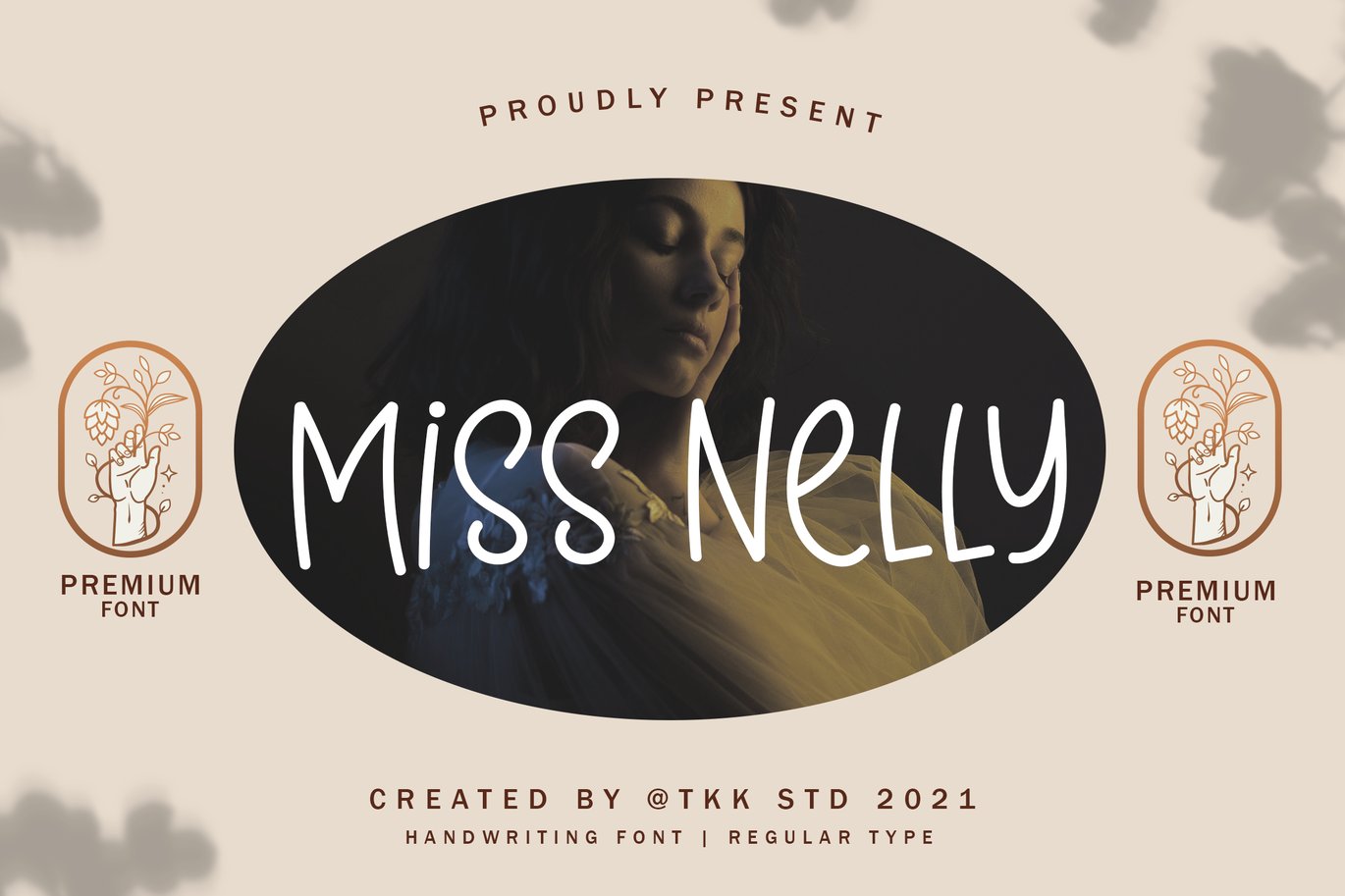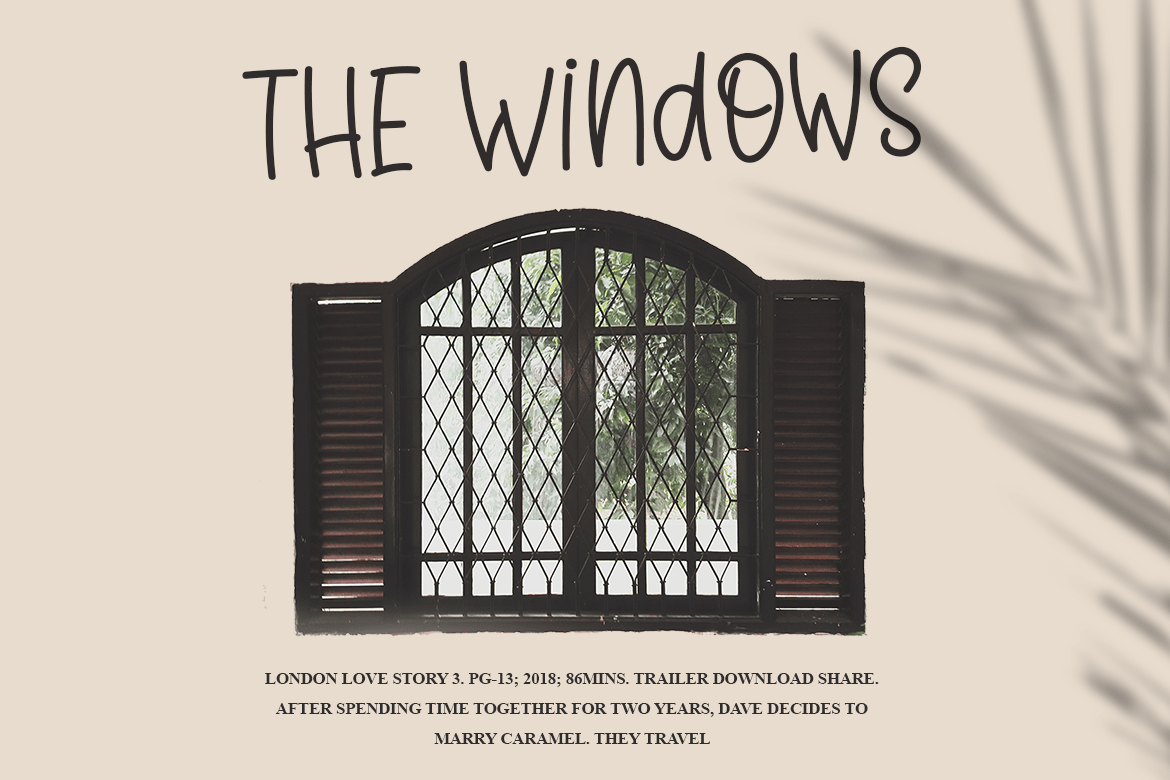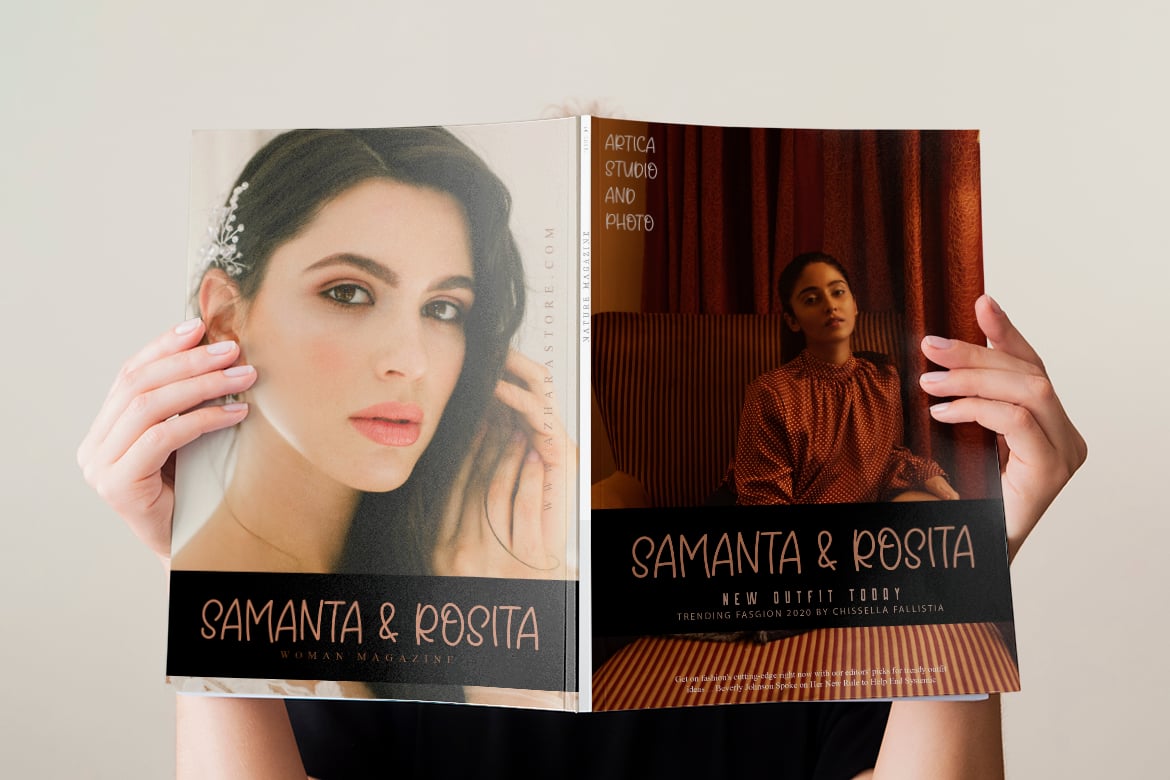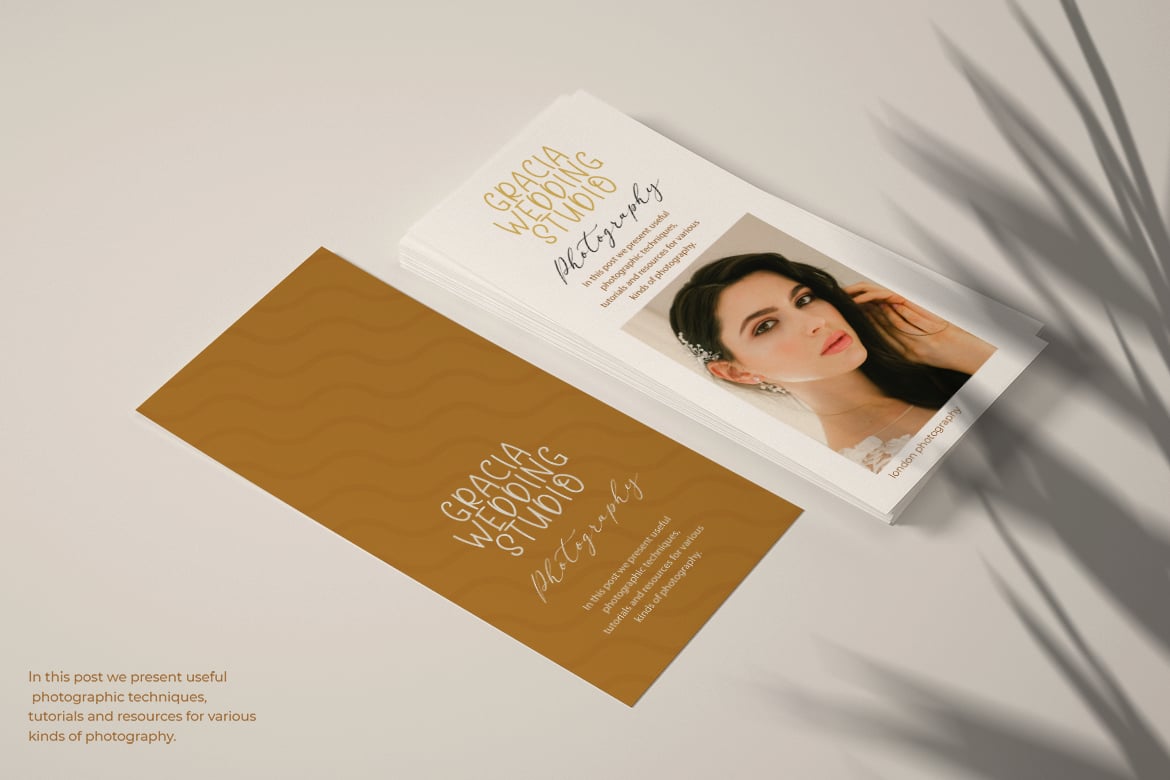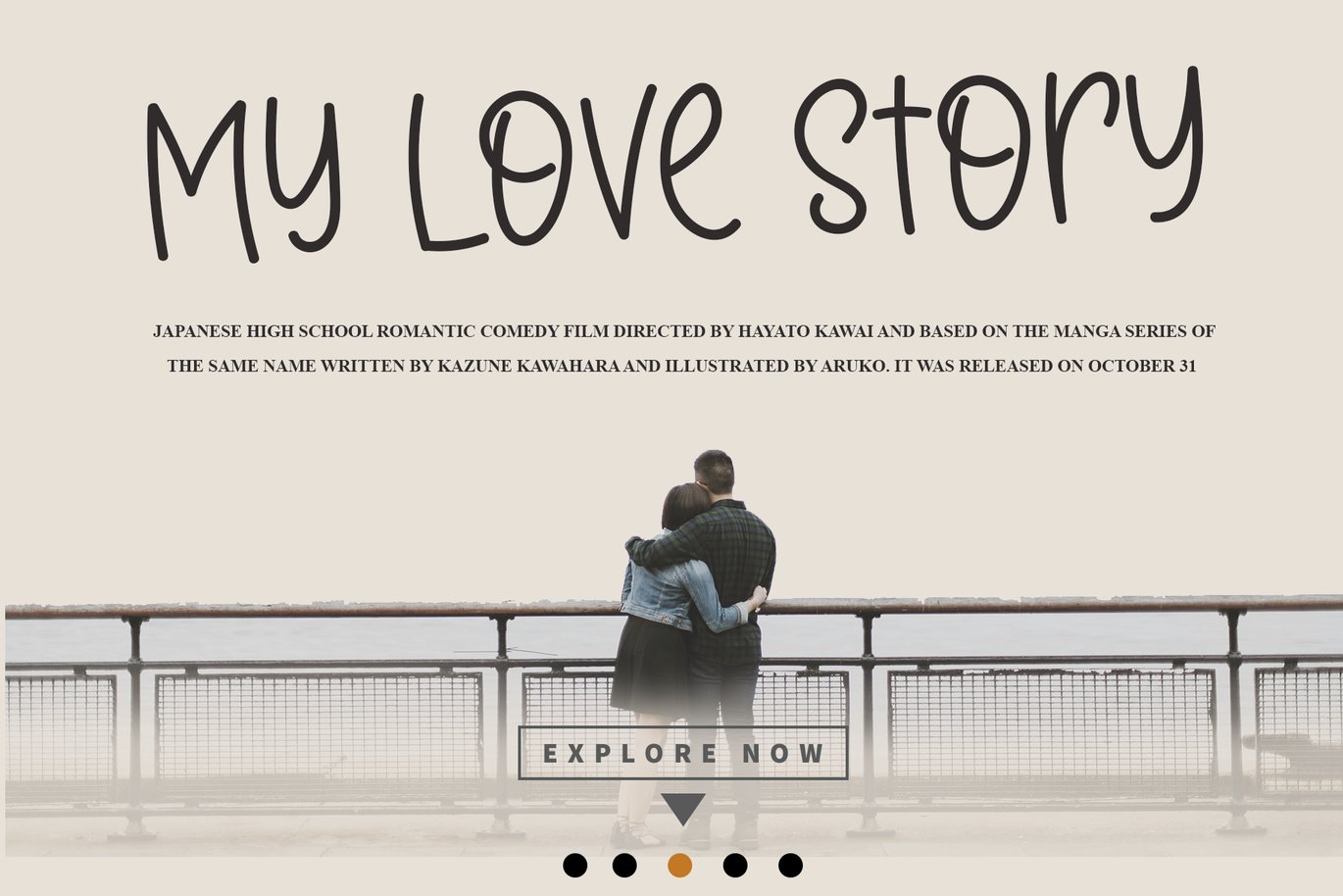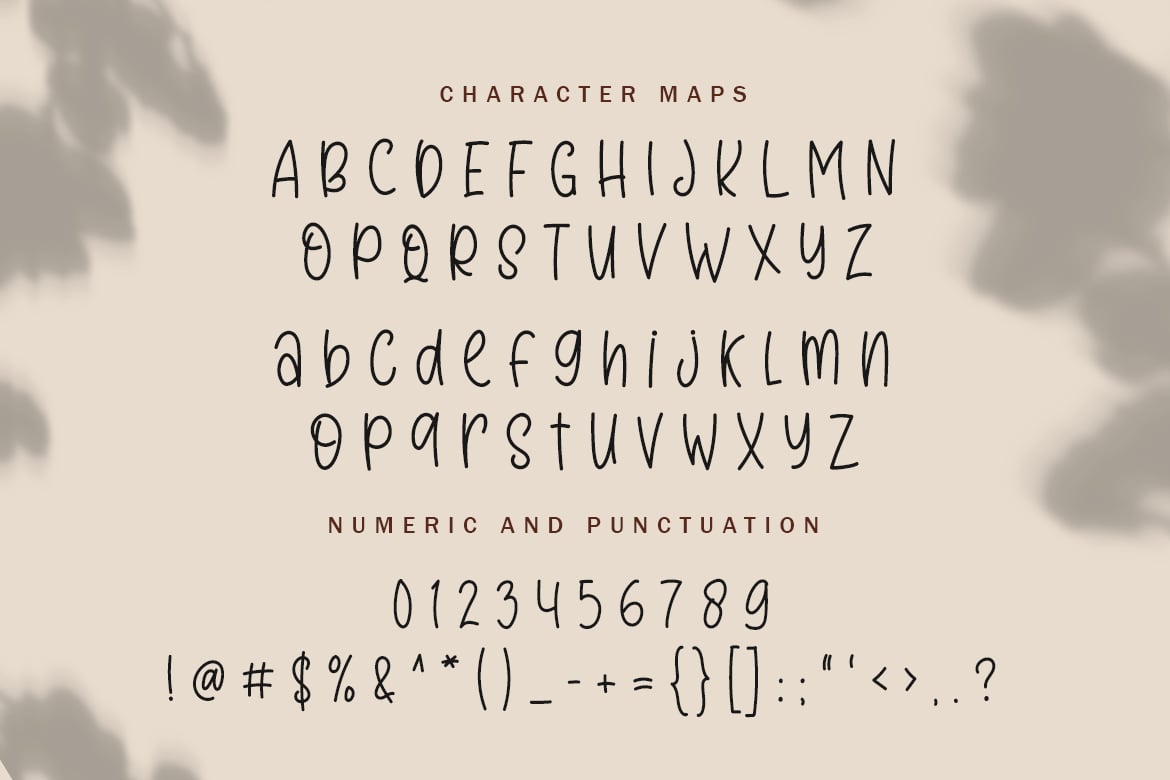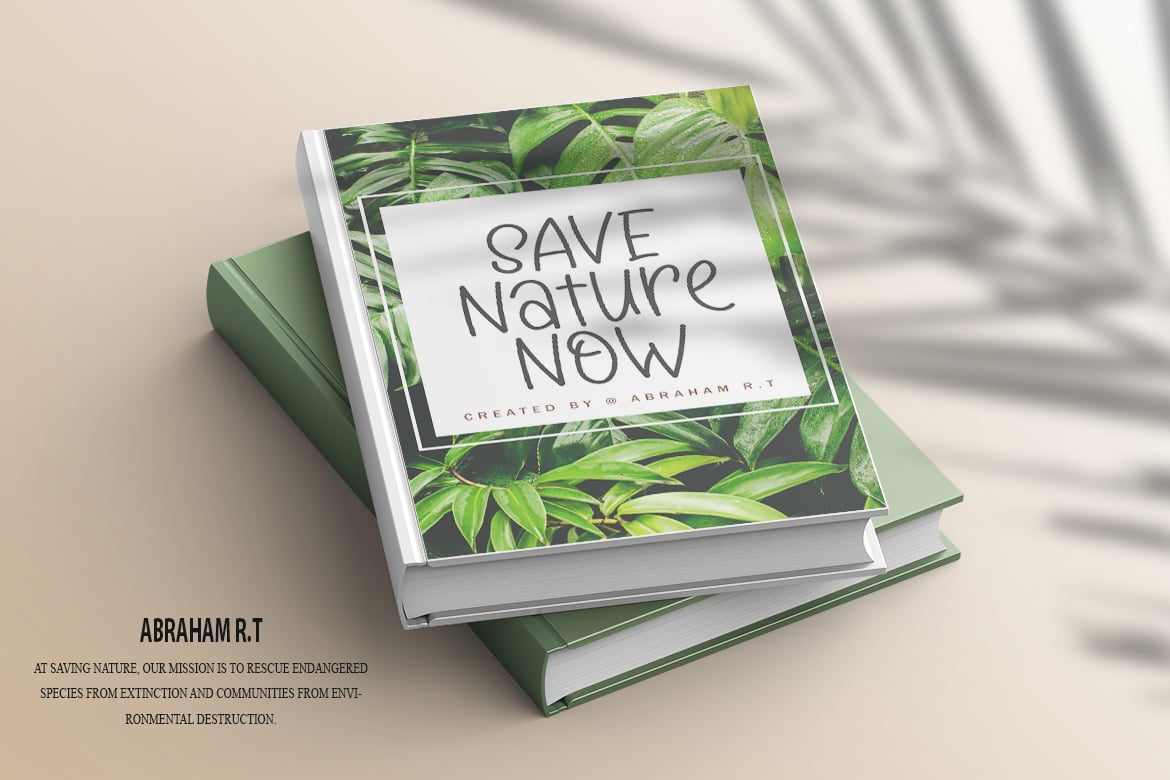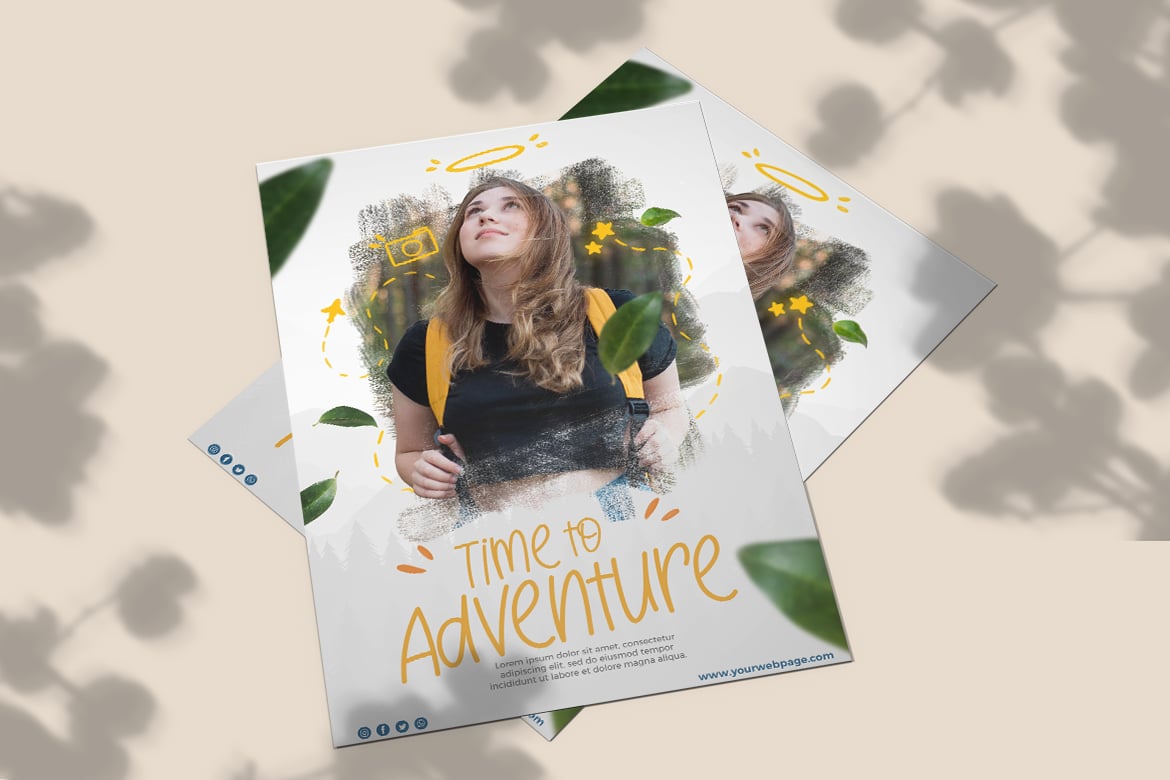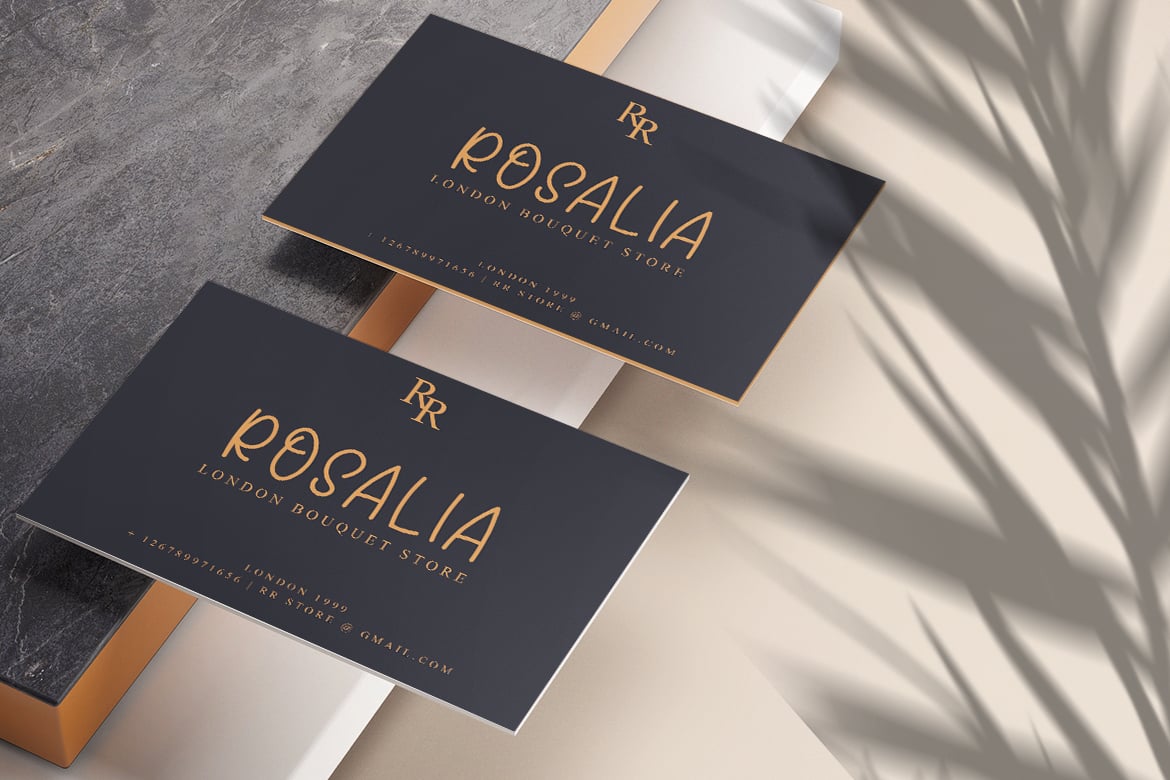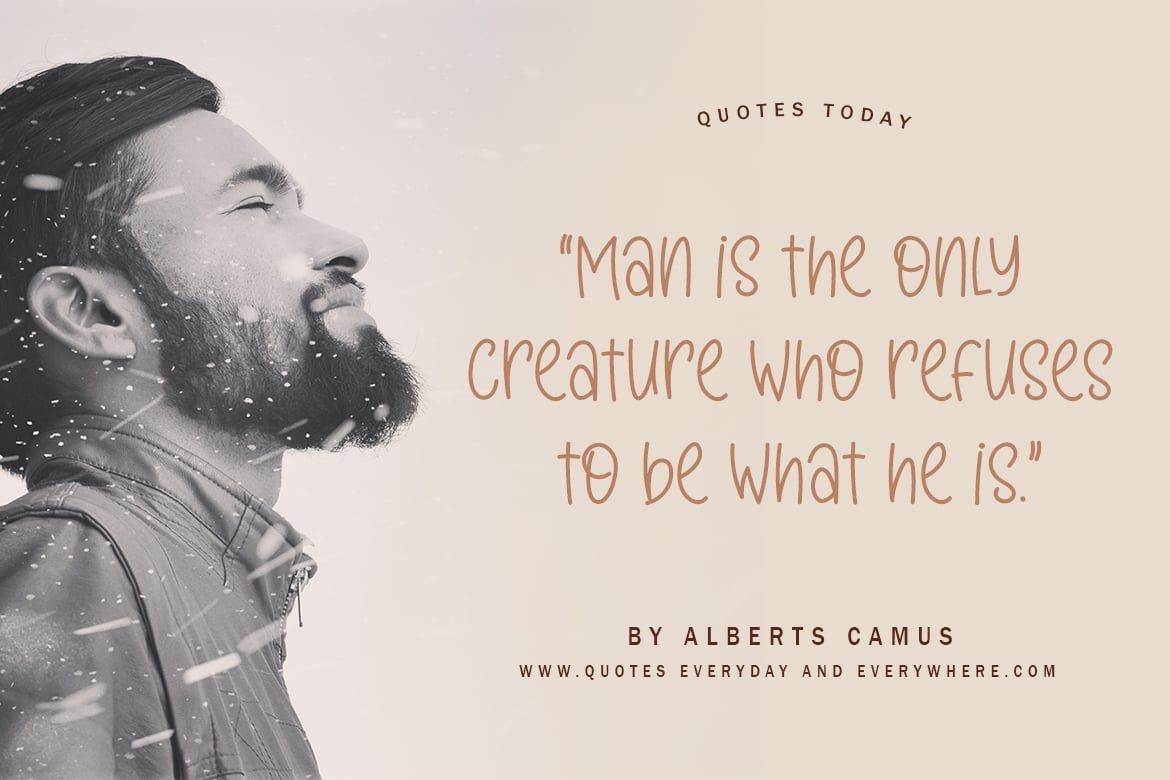
Girly handwriting font – Miss Nelly
Miss Nelly – A Chic & Elegant Handwritten Serif for Timeless Designs
Miss Nelly is the perfect balance of elegance and charm, crafted to elevate your designs with a touch of sophistication. Featuring delicate handwritten strokes combined with a refined serif structure, this font radiates warmth and grace. Whether you’re designing wedding invitations, branding, or editorial layouts, Miss Nelly ensures your message is delivered with style.
What Makes Miss Nelly Special?
- Timeless & Elegant: A seamless blend of handwritten script and classic serif elements.
- Versatile for Luxury & Romance: Ideal for wedding branding, love letters, and upscale packaging.
- Soft Yet Confident: Balanced letterforms that exude grace and professionalism.
- Perfect for Print & Digital: Works beautifully on invitations, social media, and book covers.
- Multilingual Support: Crafted for global use with extended language compatibility.
Enhance your design’s storytelling with Miss Nelly—because every detail matters.